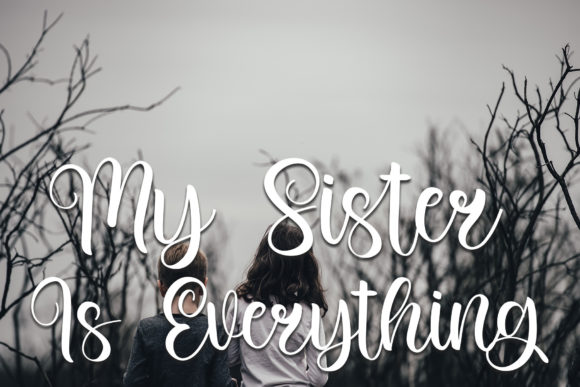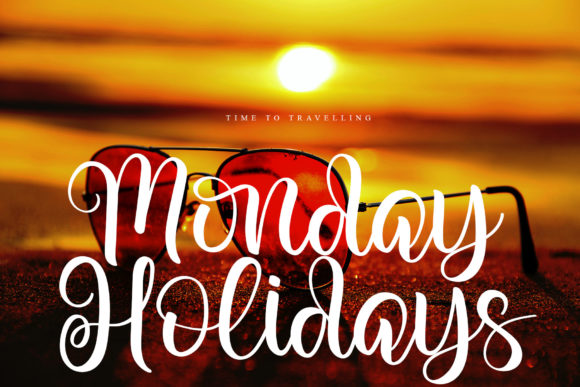
Handsome Font
db-ku.com - Script & Handwritten -- Handsome is a beautiful and whimsical script font. It is defined by smooth curves and is perfect for fashion branding or editorial designs. Add it confidently to your projects, and you will love the results.